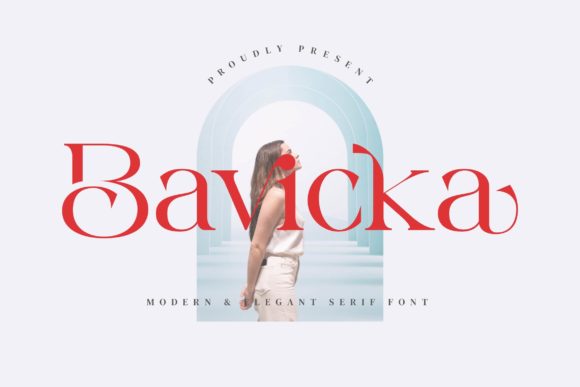
Bavicka Font: Elevate Your Brand with Elegance and Style
In the world of typography, fonts play a crucial role in defining a brand’s identity and aesthetic appeal. Among the myriad of fonts available, Bavicka stands out as a stylish and elegant serif font that has garnered attention for its versatility and sophistication. In this article, we will delve into the features, applications, and benefits of using Bavicka font in your branding projects.
What is Bavicka Font?
Bavicka is a meticulously crafted serif font that exudes elegance and refinement. Its classic design, coupled with modern twists, makes it an excellent choice for a wide range of branding projects. Whether you’re creating a logo, designing t-shirts, or crafting sports-related designs, Bavicka offers the perfect blend of style and functionality.
Key Benefits of Using Bavicka Font
- Versatility: Bavicka’s design is versatile enough to be used across various platforms and mediums, from digital interfaces to print materials.
- Elegance: The font’s elegant appearance makes it suitable for high-end brands looking to establish a sophisticated image.
- PUA Encoding: Being PUA (Private Use Area) encoded, Bavicka allows easy access to all glyphs and swashes, providing users with a wide range of creative possibilities.
Applications of Bavicka Font
Bavicka’s adaptability makes it an excellent choice for various applications, including:
- Logo Design: Create memorable and impactful logos that stand out with Bavicka’s unique serif style.
- T-Shirt Printing: Add a touch of elegance to apparel designs, making them perfect for fashion brands or promotional merchandise.
- Sports Designs: Despite its elegance, Bavicka can be effectively used in sports branding, offering a distinctive look that sets your brand apart.
- Branding and Advertising: Enhance your brand’s visual identity with Bavicka, making your advertising materials more compelling and sophisticated.
Typographic Details of Bavicka Font
Bavicka font is not just another serif font; it’s designed with attention to detail, ensuring high readability and aesthetic appeal. Some of its typographic details include:
- Serif Style: Classic serifs with subtle rounded edges, giving it a soft yet formal appearance.
- Glyphs and Swashes: With PUA encoding, Bavicka offers an extensive range of glyphs and swashes, allowing for creative freedom and customization.
- Weight and Style: Available in various weights, Bavicka can be used for both headline and body text, offering flexibility in design.
Why Choose Bavicka Font?
In a sea of fonts, Bavicka stands out for several reasons:
- Unique Design: Its elegant serif design is both timeless and trendy, making it suitable for contemporary brands.
- Easy to Read: Despite its elegance, Bavicka maintains high readability, making it perfect for body text and captions.
- Highly Customizable: With PUA encoding, users have the flexibility to experiment with different glyphs and swashes, ensuring their designs are unique.
Bavicka font is a stylish, elegant, and versatile serif font that can elevate your branding projects to new heights. Its suitability for a wide range of applications, coupled with its PUA encoding for easy access to glyphs and swashes, makes it an excellent choice for designers and brands alike. Whether you’re aiming to create a sophisticated logo, stylish apparel, or compelling advertising materials, Bavicka offers the perfect blend of style, functionality, and creativity.
Incorporating Bavicka font into your design projects can significantly enhance their visual appeal and impact. With its elegant design, versatility, and creative possibilities offered by PUA encoding, Bavicka is poised to become a go-to font for designers seeking to create memorable and stylish branding materials. Explore the creative potential of Bavicka and discover how it can contribute to the success of your brand identity and design endeavors.